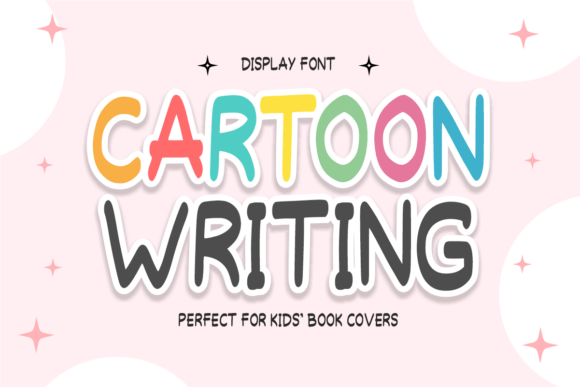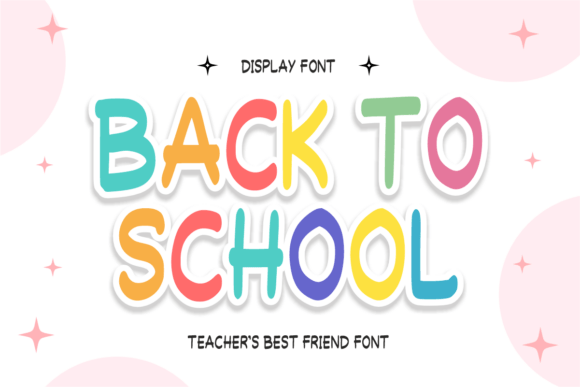
Unlocking the Magic of Childhood in Your Designs
Who among us hasn’t scribbled away in a notebook, watching as our child’s imagination brings their world to life through the simple yet powerful strokes of their handwriting? For designers and creatives, capturing that essence of childhood innocence can be a daunting task – until now.
Enter the Children Writing Font, a charmingly irregular display font that beautifully mimics the natural handwriting of a child. This font is perfect for projects that need an authentic, innocent, and handmade touch, making it an invaluable addition to any designer’s toolkit.
With its clean, highly legible design and seamless integration for both print and digital projects, the Children Writing Font is a game-changer for creatives looking to add a warm and friendly vibe to their work.
Children Writing Font Key Features
- Font Style: Designed to mimic the handwriting of children, with unique letterforms and flourishes.
- Unique Characteristics: Features irregular letter spacing, uneven letter heights, and intentional imperfections to create a genuine, child-like feel.
- Legibility: Designed to be highly legible, even at small sizes, making it perfect for use in educational materials, signage, and other applications where readability is crucial.
Design Review: Children Writing Font
Overall, I found the Children Writing Font to be a sweet, endearing typeface. ✨ The irregularities and imperfections in the letterforms create a sense of hand-written charm, making it perfect for children’s books, educational materials, and other kid-friendly content.
The font’s features, such as the playful ascenders and descenders, add to its whimsical feel. ✨ Additionally, the font’s x-height is well-proportioned, making it easy to read for children and adults alike. ✨ However, I did notice some inconsistencies in the font’s spacing and kerning, which can make it look a bit cluttered at times.
Here are some specific features that I liked and disliked:
- ✨ Irregular letterforms create a hand-written feel
- ✨ Playful ascenders and descenders add to the whimsical feel
- ✨ Well-proportioned x-height
- ⚠️ Inconsistent spacing and kerning
- ⚠️ Limited font weights and styles
Overall, I think the Children Writing Font is a great choice for designers working on children’s content, but it may require some tweaking to achieve the desired look. With some careful attention to spacing and kerning, this font has the potential to be a real showstopper.
The Children Writing Font is perfect for:
- Children’s books and educational materials
- Fun and creative projects